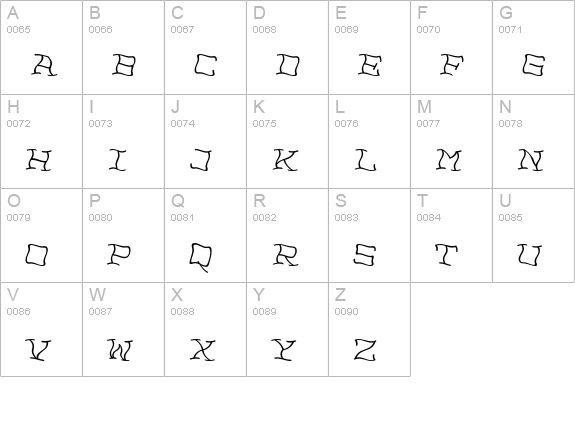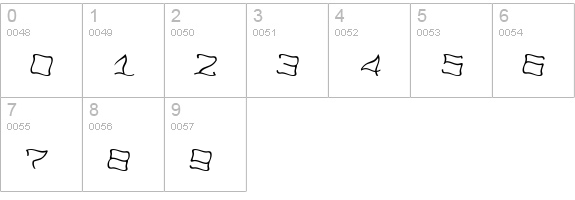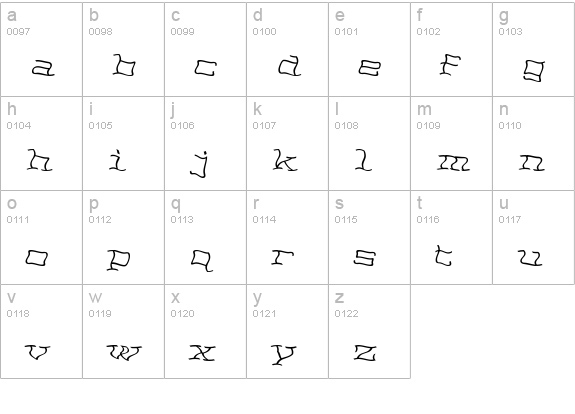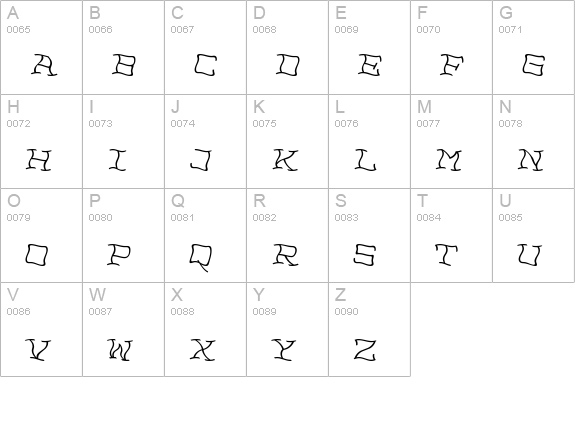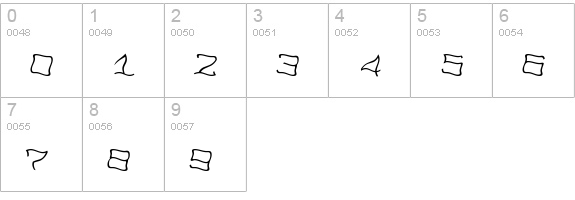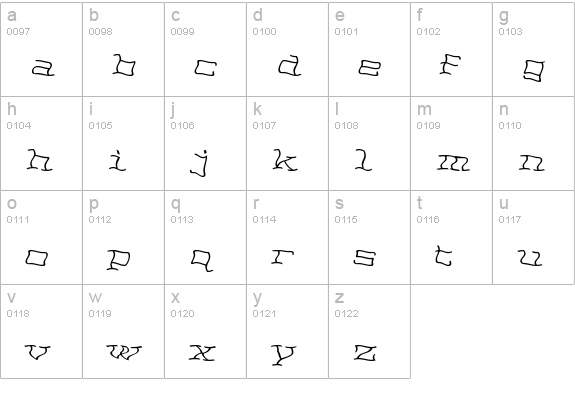
NoPainRight Font Details
Introducing NoPainRight font, a versatile and modern typeface designed to bring a touch of sophistication to your projects. With its sleek lines and elegant curves, NoPainRight is perfect for a wide range of design applications, from branding to packaging and beyond. This font exudes a sense of professionalism and style, making it a go-to choice for designers looking to make a statement. What's even better is that NoPainRight is available for free download at FontsMarket.com. Yes, you read that right - this high-quality font is yours to use for any personal or commercial project without any cost. So why wait? Elevate your designs with the timeless elegance of NoPainRight font today!